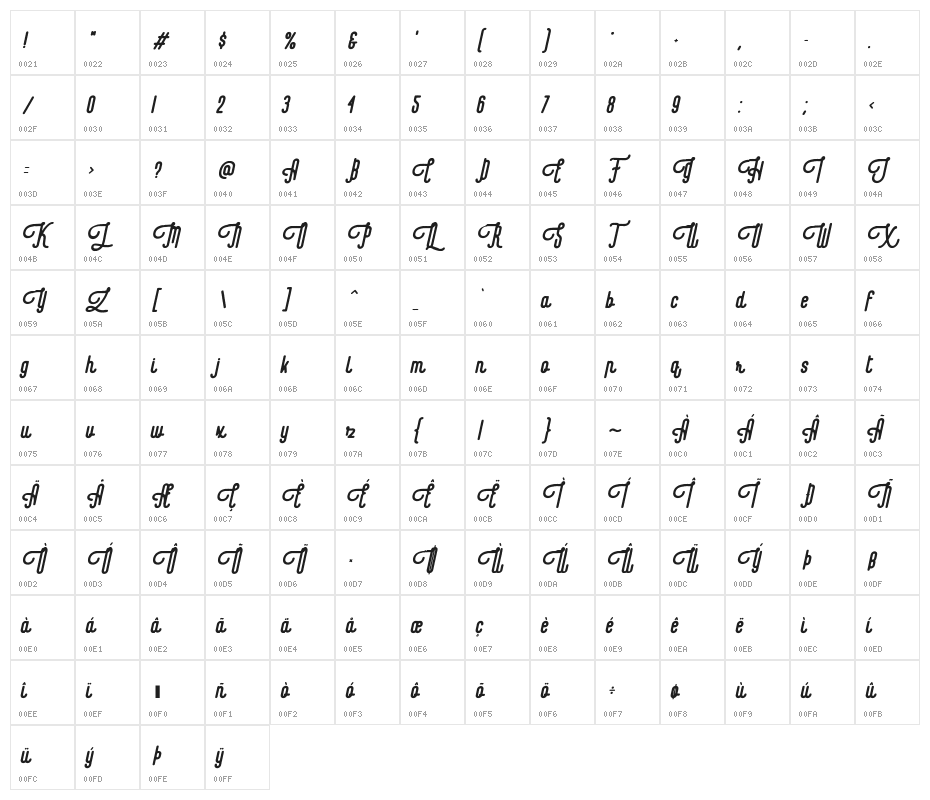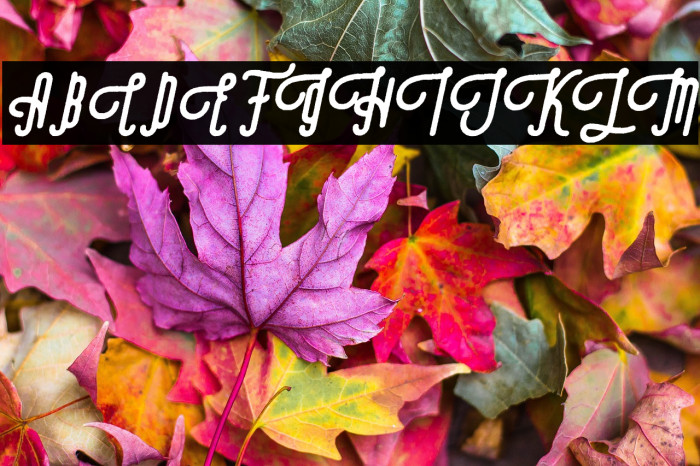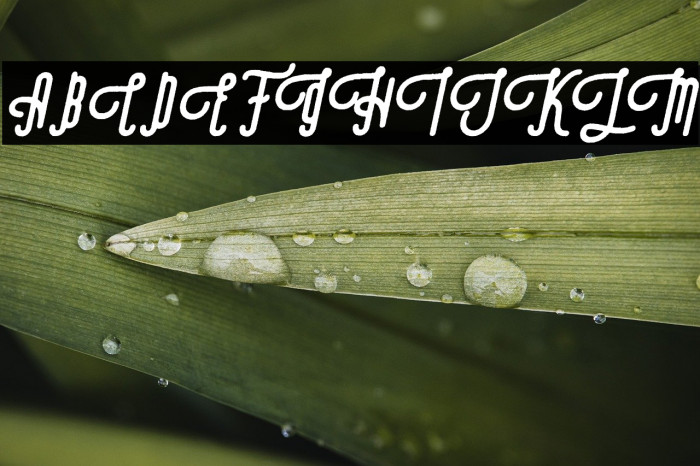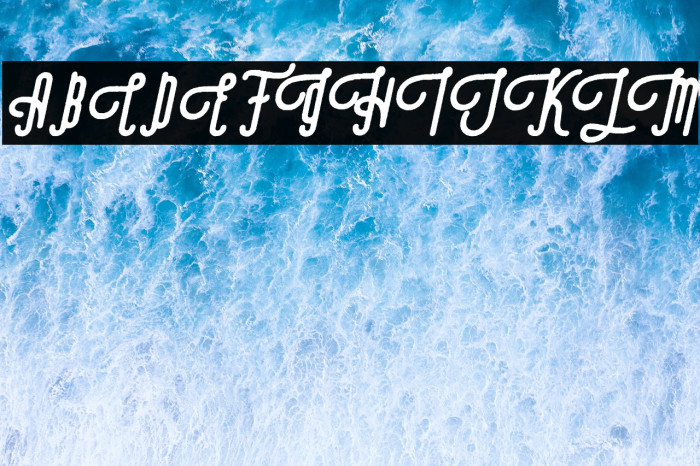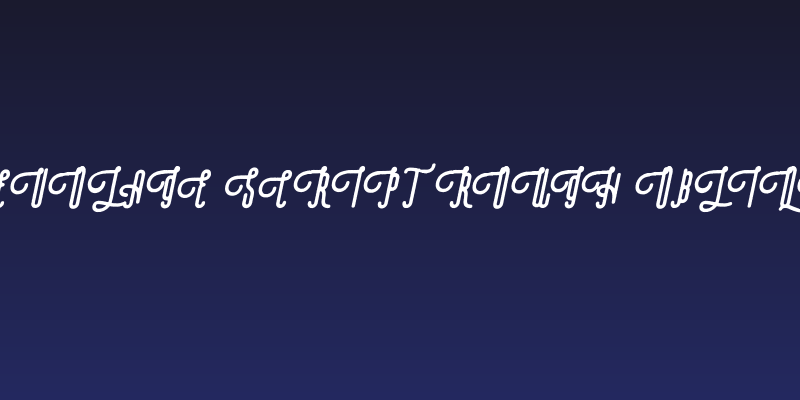
Revolage Script Rough Oblique Font
Revolage Script Rough Oblique Description
This font features a dynamic and energetic script style with a rough, hand-drawn appearance. The letters are oblique, giving them a forward-leaning, italicized look that adds a sense of movement and fluidity. The strokes are bold and slightly irregular, contributing to a textured, rustic feel. The uppercase letters are distinct with unique flourishes, while the lowercase letters maintain a consistent flow. The numerals and special characters complement the alphabet with similar stylistic elements, ensuring a cohesive look across all text. This font's playful yet sophisticated design makes it suitable for creative projects that require a touch of personality.
| Use Case | Logos, Headlines, Artistic projects |
| Proposed Projects | Ideal for branding, packaging, invitations, and artistic posters. |